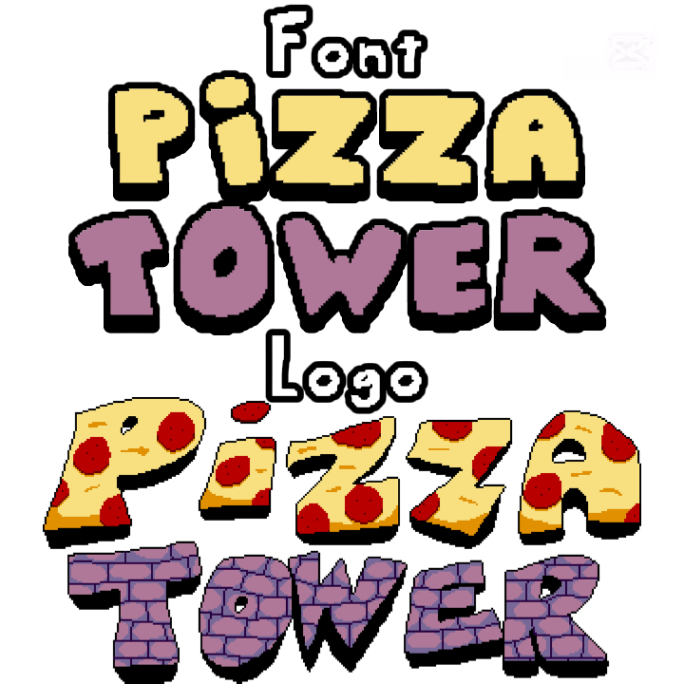
• A font based on the logo of Pizza Tower & the game's 'It's Pizza Time!' sprite.
Here it is against the original logo.
Pretty nice, but you can enable letter widths, then drag that line to the desired width on the space character.